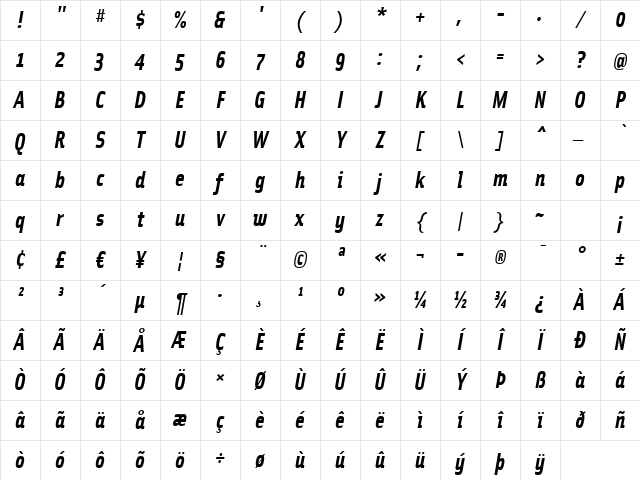
SolexBoldItalic Regular Free Font
SolexBoldItalic Regular
Copyright: Copyright (C) 2000, Emigre Inc.; Designed by Zuzana Licko
Foundry: Emigre Inc.
Designer: Zuzana Licko
Design Context for SolexBoldItalic
SolexBoldItalic is a composed and adaptable typeface that performs quietly and consistently across a wide range of design contexts. The slanted form adds forward momentum and visual energy. Its bold stroke weight gives it real presence on the page.
Pro Tip: Use SolexBoldItalic for emphasis, pull quotes, and subheadings where its slanted energy can add rhythm to the layout.
Who designed the SolexBoldItalic Regular font?